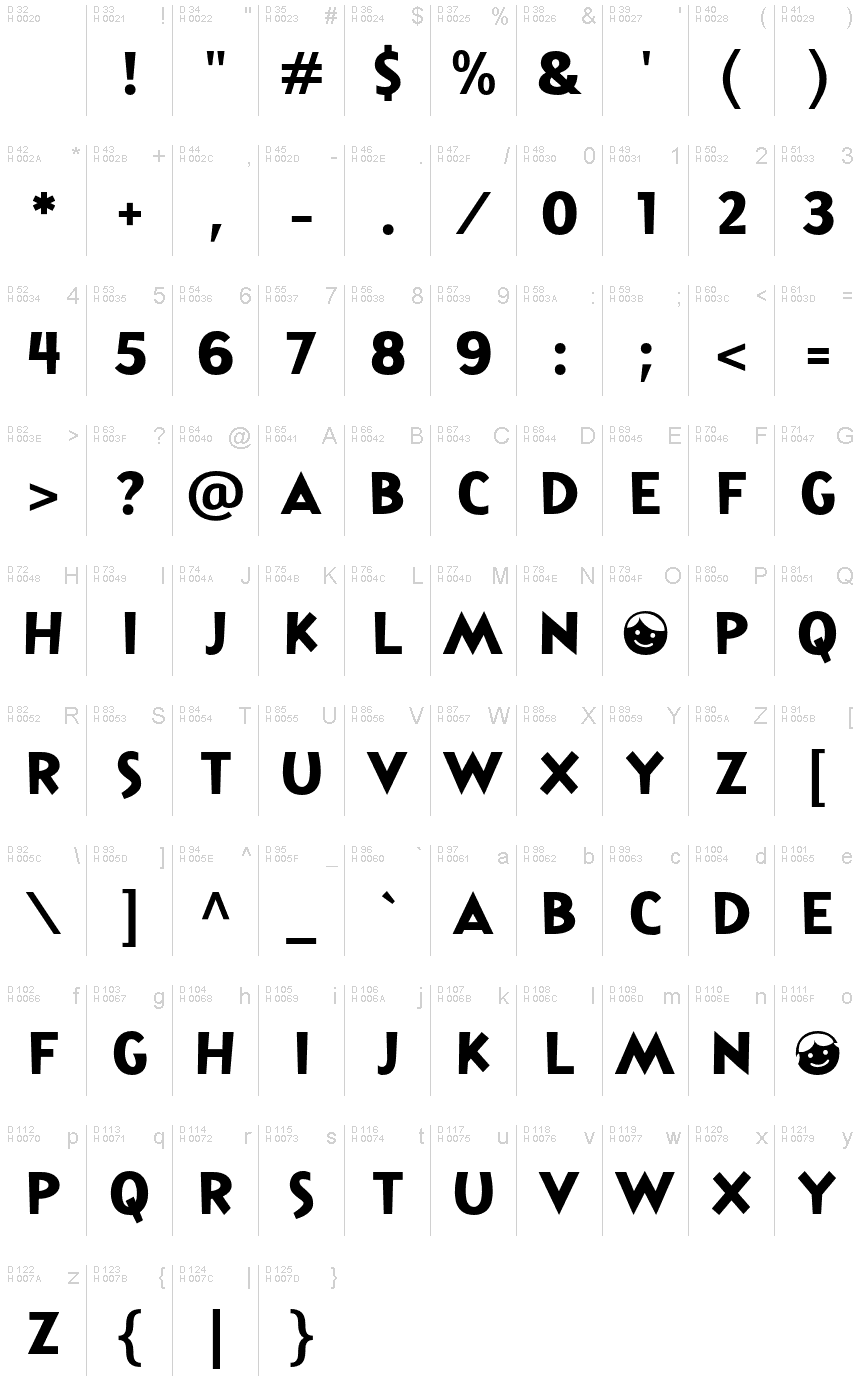
ToysIndonesia-Regular
Toys Indonesia is a delightful display font designed by Faqih Fawaji. Its semi-bold weight and playful cartoon style make it the perfect choice for a wide range of projects. Ideal for children's books, toy packaging, and party invitations, Toys Indonesia exudes an air of fun and whimsy that kids and adults alike will love. This typeface is also suitable for creating eye-catching logos, posters, and social media graphics that demand attention. Bring your designs to life with the vibrant energy of Toys Indonesia - it's sure to put a smile on everyone's face!